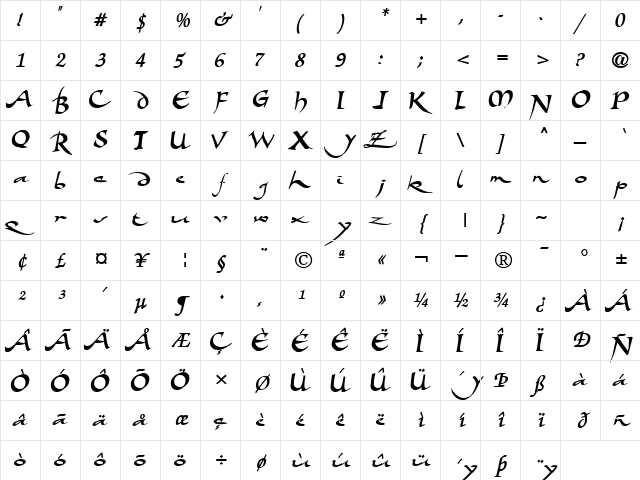
ImageMaker25 Bold Free Font
ImageMaker25 Bold
Complete ImageMaker25 Bold glyph index. Displaying only characters natively supported by ImageMaker25 Bold font.
Design Context for ImageMaker25
ImageMaker25 is a composed and adaptable typeface that performs quietly and consistently across a wide range of design contexts. Its bold stroke weight gives it real presence on the page.